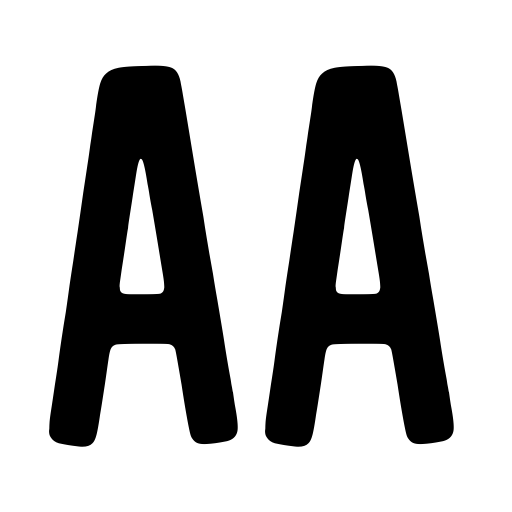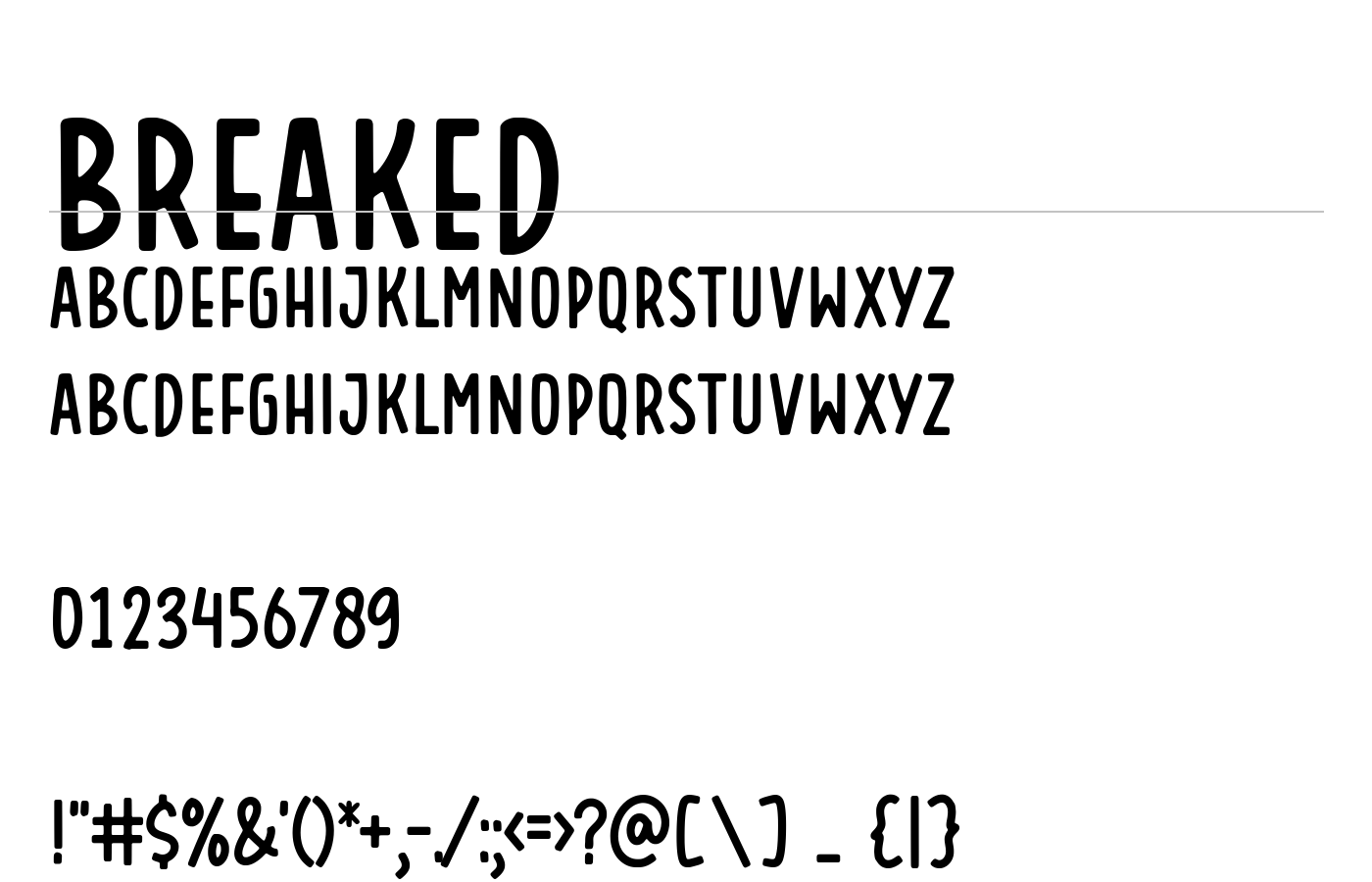
Breaked Font is a tall, narrow sans serif typeface with a playful and hand-drawn feel. Its slightly irregular letter shapes and consistent stroke weight give it a casual, approachable charm that works well for informal branding, children’s materials, and creative projects needing a friendly, distinctive look. This font shines in headlines and display use where a touch of whimsy and personality is desired.
Breaked Font
About Breaked Font
| Font family | Breaked Font |
| Designer | Letterative Studio |